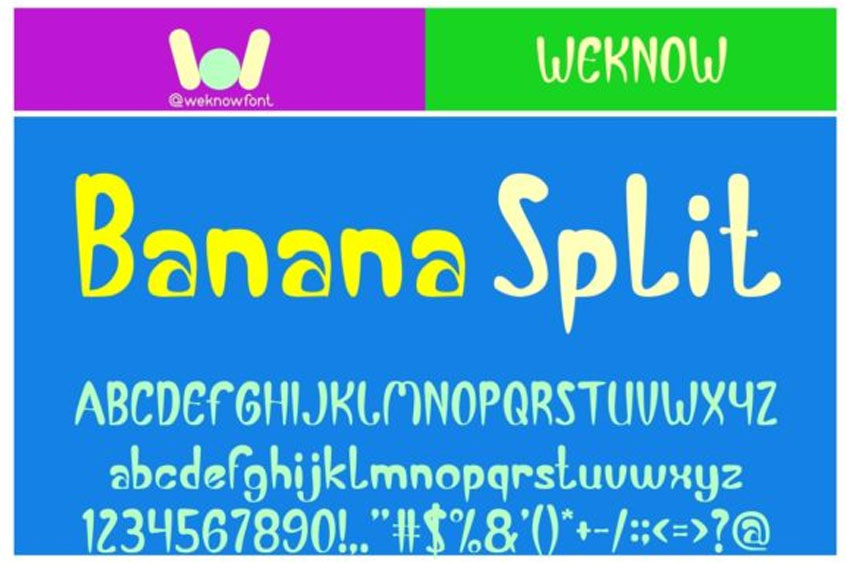
Banana Split Display Font
Banana Split Display Font is a fancy display font suitable for logos, logotypes, headlines, corporate identity, brand identity, the apparel industry, posters, music, movies, games, magazines, books, comics, cartoons, YouTube, Instagram, website, or any of your creative design projects!
Perfectly crafted to meet all your design needs.